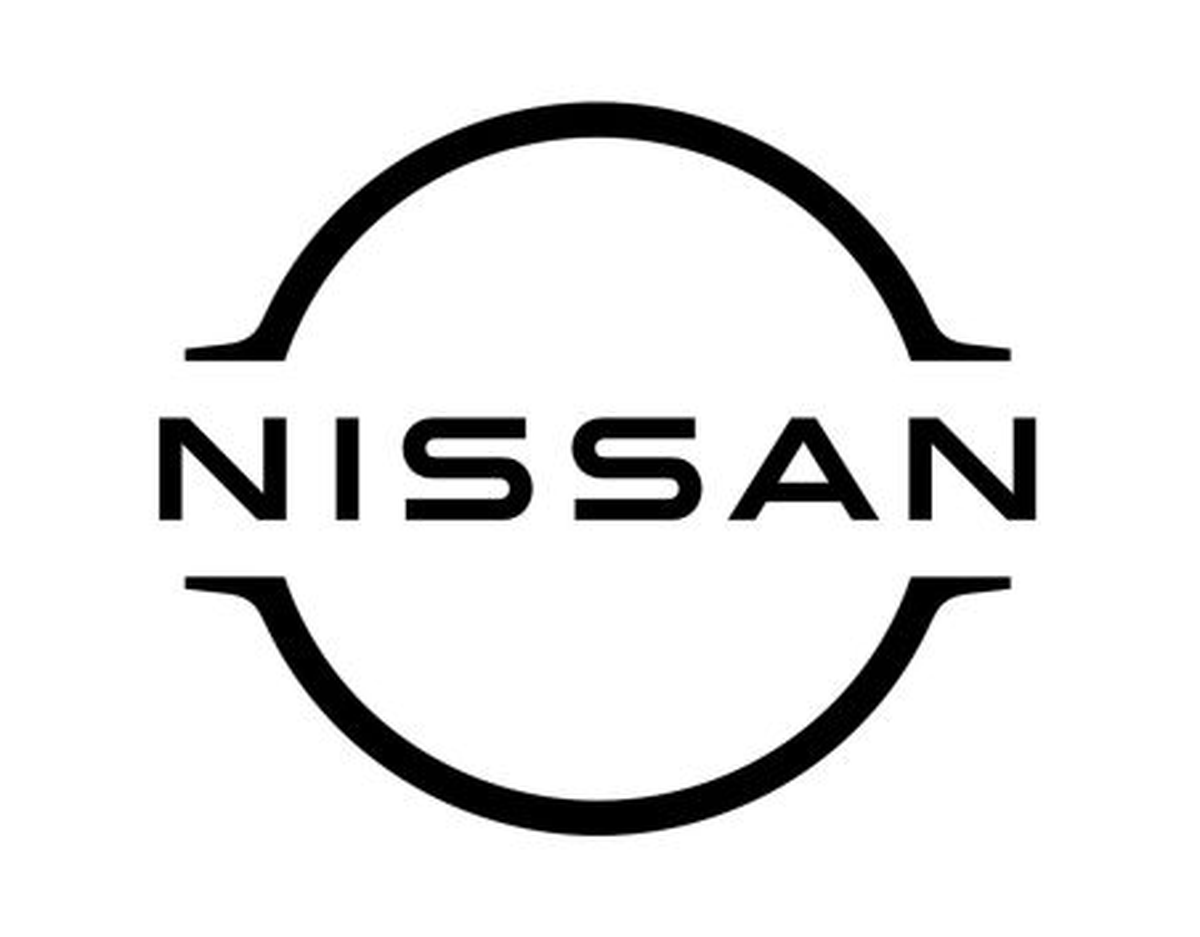
Nissan font preview
About Nissan
Nissan is the Japanese multinational automaker headquartered in Yokohama, founded in 1933 and now one of the world's largest vehicle manufacturers. Its wordmark uses a heavy techno-display sans with squared bowls and wide proportions, lettering that reads as engineered and forward-leaning across showrooms, racing livery, and global ad campaigns. The mark has been refined several times but kept the same broad-shouldered display character throughout.
Nissan's identity covers an unusually wide product range, from kei cars and family hatchbacks to the GT-R supercar and the Z line. The wide-stance techno-display wordmark holds that range together by reading as substantial and confident at any scale, whether on a Le Mans car or a dealership pylon. The broad display register has become a default for the Japanese performance-automotive category.
What font does Nissan use?
Nissan uses The Nissan wordmark is a custom industrial display face. The closest off-the-shelf approximation is Aspire from Larabie Fonts, a wide super-elliptical techno-display sans. The font on this page is Lipi's original generated lookalike of that heavy techno-display style.
Where this style works
Heavy super-elliptical display sans-serifs are at home in automotive and motorsport branding, esports tournament identities, sports broadcasting lower-thirds, gaming and electronics packaging, action-sport apparel wordmarks, and any layout that wants to read as built rather than drawn. The wide stance scales cleanly from app icons to stadium signage.
What fonts are similar to the Nissan font?
Comparable heavy techno-display sans-serifs include Aspire, Eurostile Extended, Microgramma Extended, Bank Gothic, and ITC Handel Gothic. Free options in adjacent territory include Audiowide, Russo One, and Black Ops One from Google Fonts.